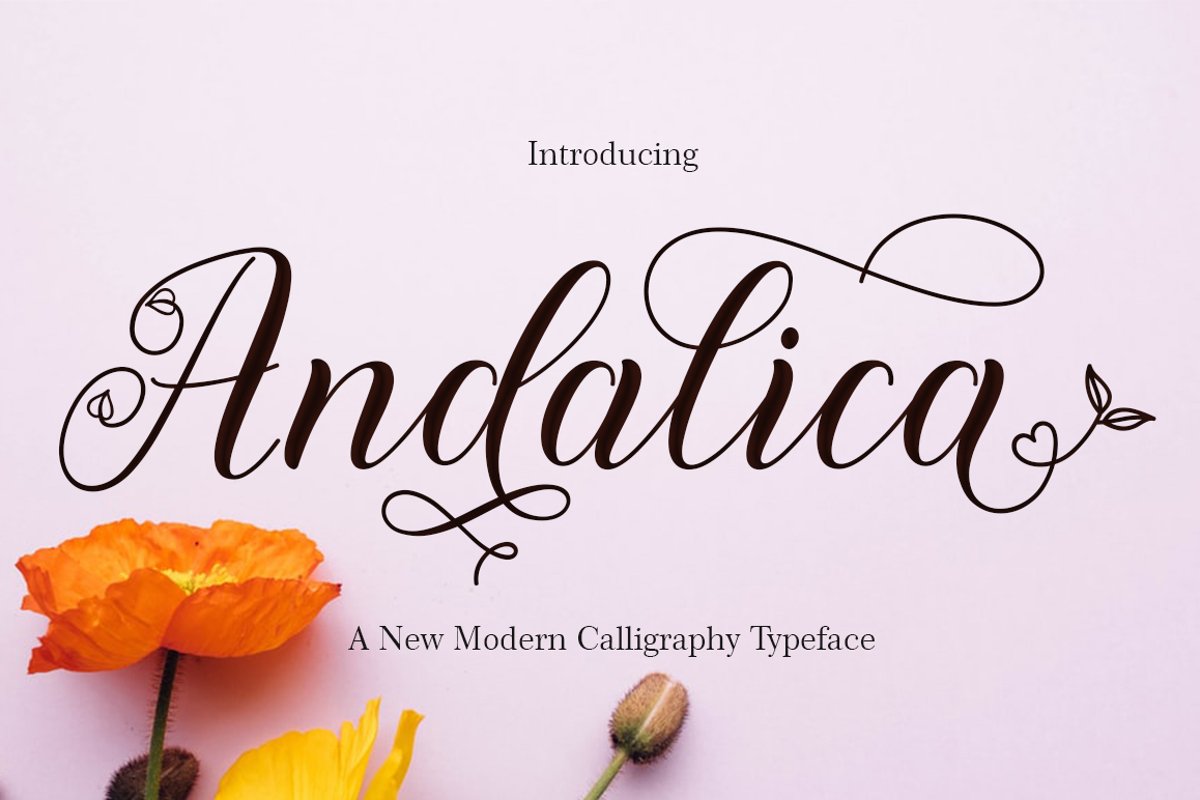
Andalica
Andalica is another lovely modern calligraphy typefaces, which is combining the style of classic calligraphy with an modern style. combines from copperplate to contemporary typeface with a dancing baseline, modern and elegant touch.
The Features of this fonts is;
Standart ligatures
Stylistic Alternates
Stylistic sets
PUA Unicode (Private Use Areas)
Languages supported: Breton, Catalan, Czech, Danish, Estonian,French, German, Hungarian, Icelandic, Italian, Romanian, Scottish Gaelic, Slovak, Latvian, Lithuanian, Norwegian, English, Finnish, Polish, Portuguese, Slovenian, Spanish, Swedish, Turkish, Welsh. Basically, all european languages that are based on latn alphabet.